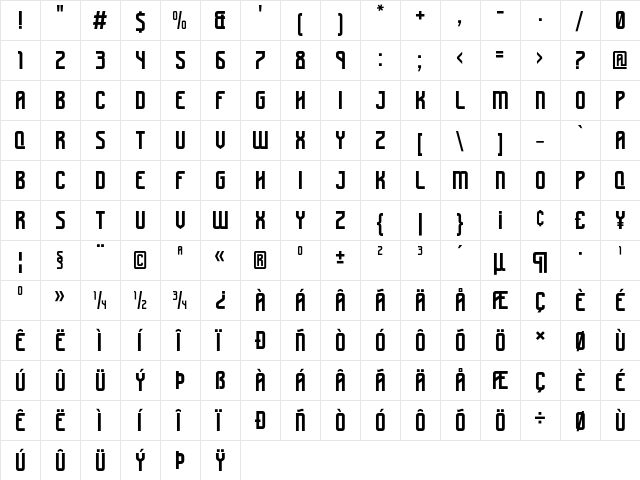
Boldness Regular
| Foundry | Diego Inacio |
| Designer | Diego Inacio |
Design Context for Boldness Typeface
Boldness takes a measured approach to typography — its balanced proportions and neutral character make it a reliable workhorse for both digital and print work. Its bold stroke weight gives it real presence on the page.